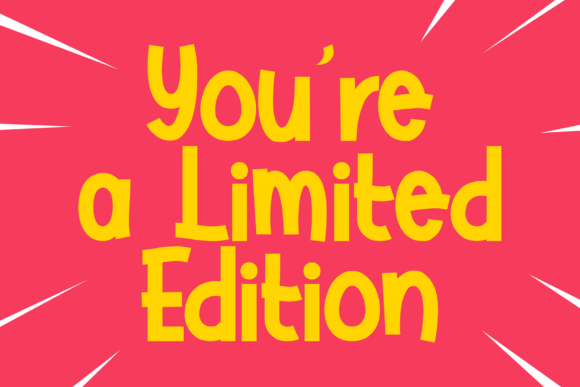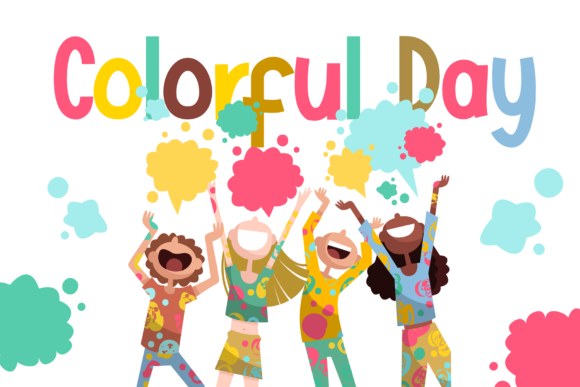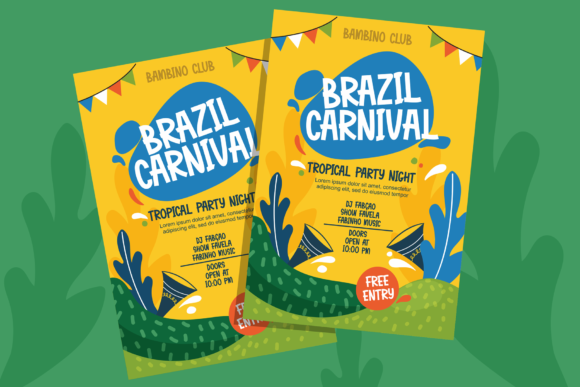
Introduction to Kids Komik Font
Remember the moment when you stumbled upon the perfect font for your child’s birthday party invitation or school project? The one that instantly conveyed the excitement and playfulness you were aiming for? For many designers, that moment is exactly what the Kids Komik Font is all about.
As a design resource, the Kids Komik Font offers a refreshing take on typography. Its simple yet vibrant design makes it the perfect choice for any creative project, from children’s activity sheets to educational posters. One of its standout features is its transparent background, allowing you to easily combine it with other elements and images. And the best part? It’s available for free download, making it a valuable asset for designers of all levels.
Key Features of Kids Komik Font
- High-quality, fun, and playful design ideal for kids’ creative projects, educational materials, and design resources.
- Features a transparent background, allowing for easy layering and customization in creative projects.
- Includes a range of kid-friendly characters, symbols, and icons, perfect for kids’ books, comics, and educational materials.
- Designed to be versatile and adaptable, making it an excellent choice for various design projects, from kids’ party invitations to educational materials.
Honest Review: Kids Komik Font
As a designer, I’m always on the lookout for unique and high-quality design resources to add some personality to my creative projects. Recently, I came across the Kids Komik Font, and I must say it’s been a fun addition to my design library.
- ✨ Unique and playful style that’s perfect for kids-themed projects or any design that needs a touch of whimsy.
- ✨ High-quality font that’s clear and easy to read, even at smaller sizes.
- ⚠️ Limited character set, which may not be suitable for longer blocks of text.
- ⚠️ May not be the best choice for professional or formal designs, as it’s quite playful and informal.
Overall, I’m really enjoying using the Kids Komik Font in my designs. It’s a great resource for anyone looking to add a bit of fun and personality to their creative projects. Just be aware of its limitations and use it accordingly.
Tips for Getting the Most Out of Kids Komik Font
To get the most out of Kids Komik Font, use it with a transparent background to create a fun and playful effect. You can also pair it with other fonts to create a unique design style.
Common Use Cases for Kids Komik Font
Kids Komik Font is commonly used in children’s educational materials, such as worksheets, coloring books, and activity sheets. It’s also used in marketing materials, such as posters, flyers, and social media graphics.
Q: Does the Kids Komik Font come with a transparent background?
No, the Kids Komik Font does not come with a transparent background. However, you can easily create a transparent background using image editing software such as Adobe Photoshop or GIMP.